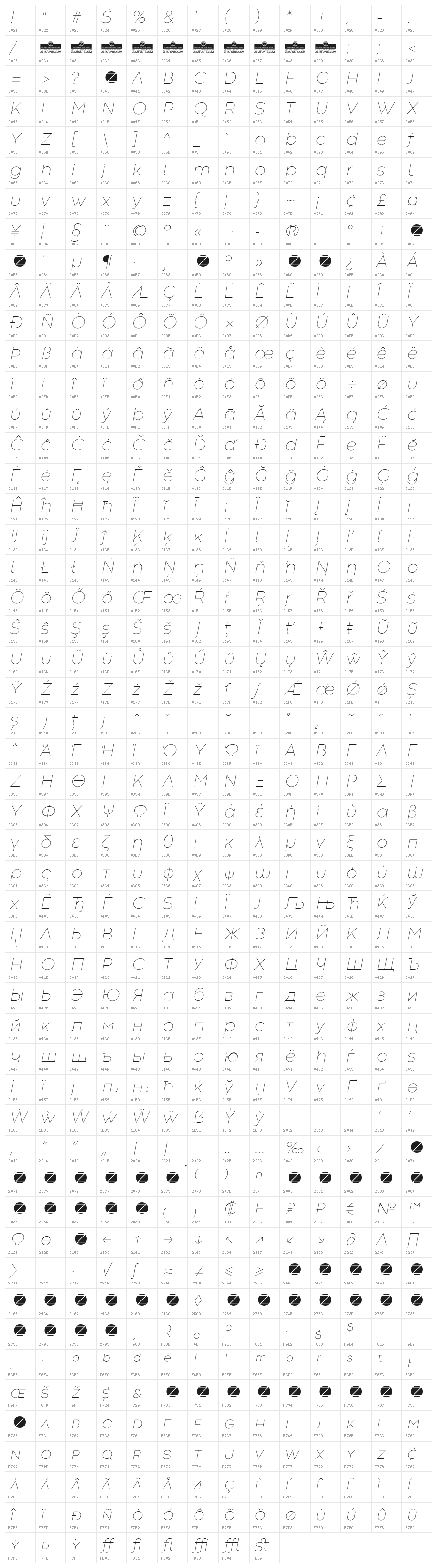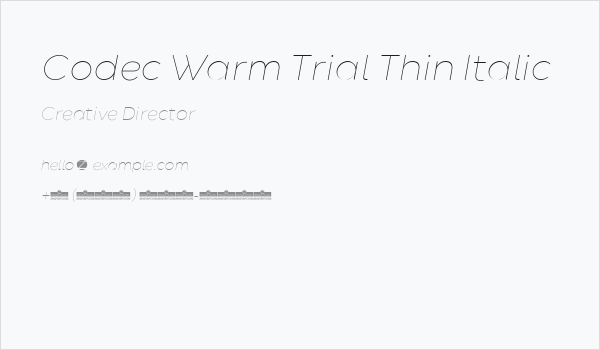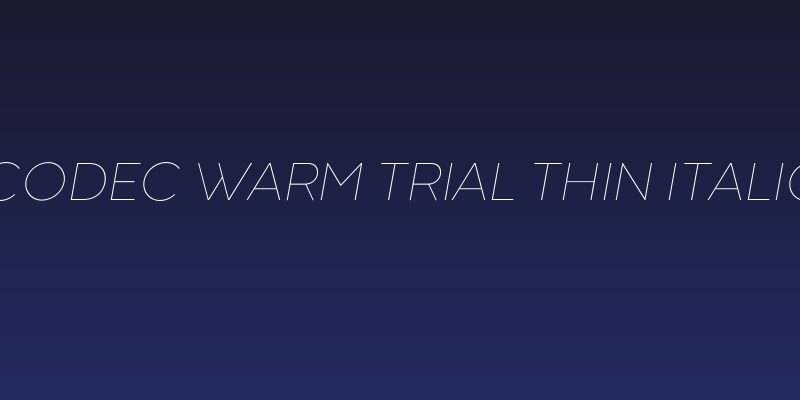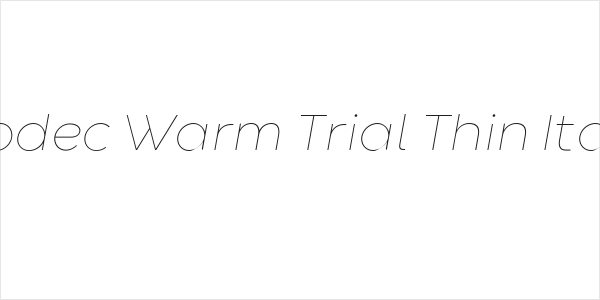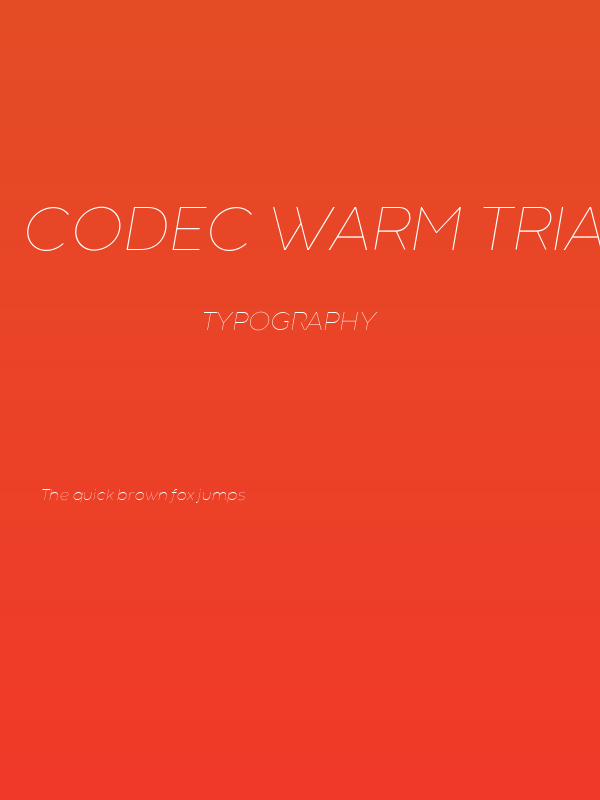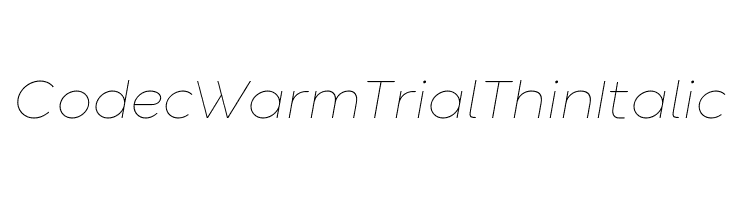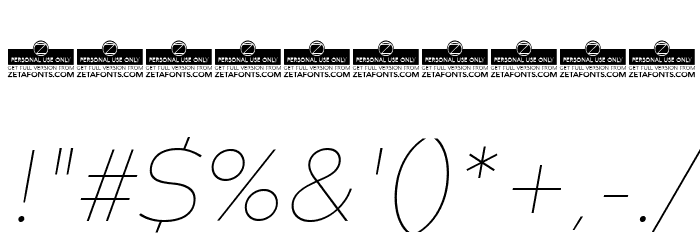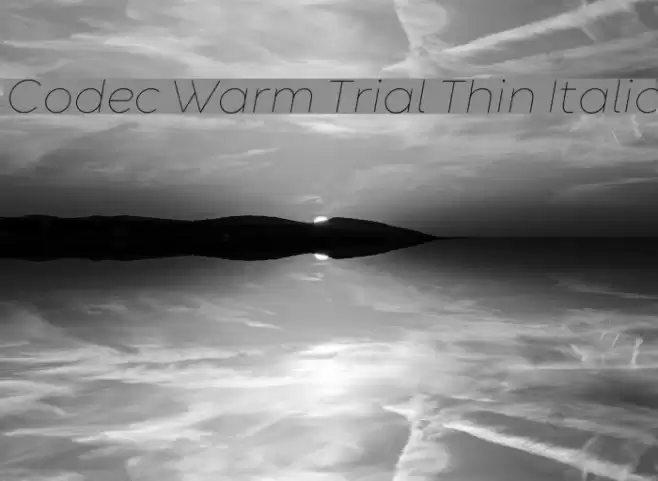
Codec Warm Trial Thin Italic Font
Codec Warm Trial Thin Italic Description
This font features a sleek, modern design with a thin, elegant stroke. The italicized style adds a sense of motion and sophistication, making it ideal for contemporary projects. The characters are well-defined with a consistent slant, providing a harmonious flow across text. The uppercase and lowercase letters maintain a uniform appearance, while the numerals and special characters are crafted with precision. This font's minimalist aesthetic is perfect for creating a clean and polished look.
| Use Case | Headlines, Body text, Logos |
| Proposed Projects | Ideal for fashion magazines, modern branding, elegant invitations, and minimalist web design. |